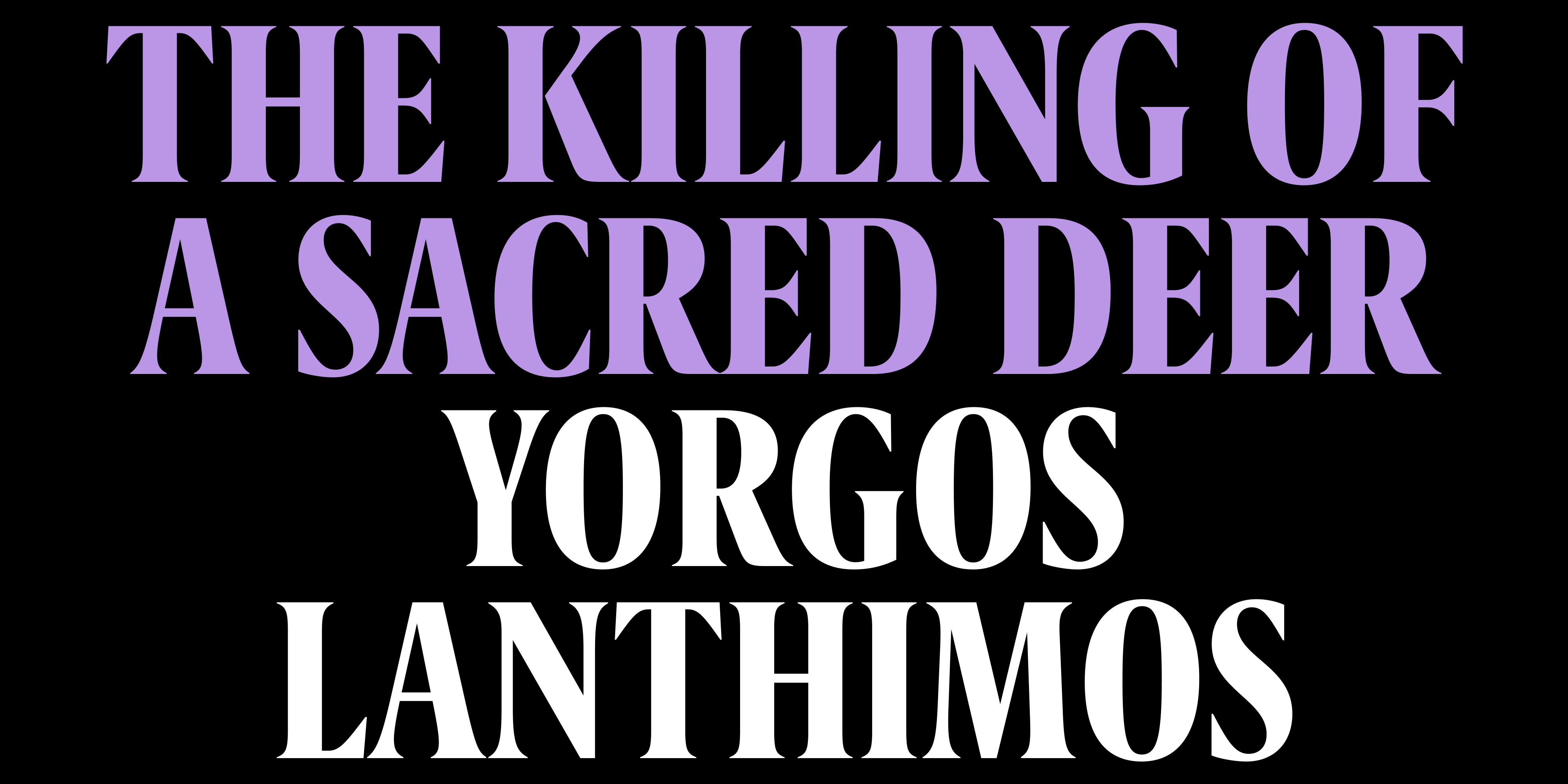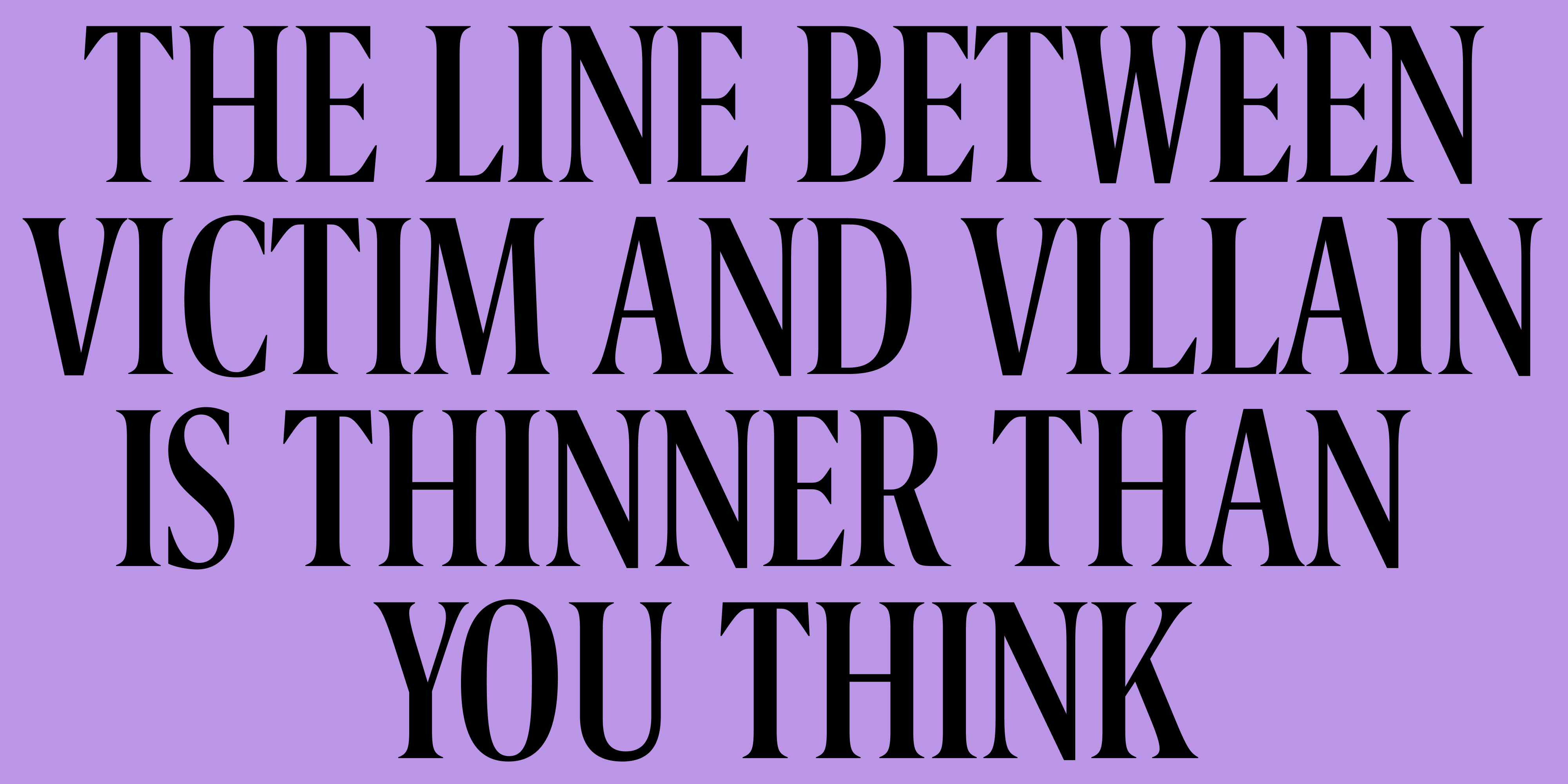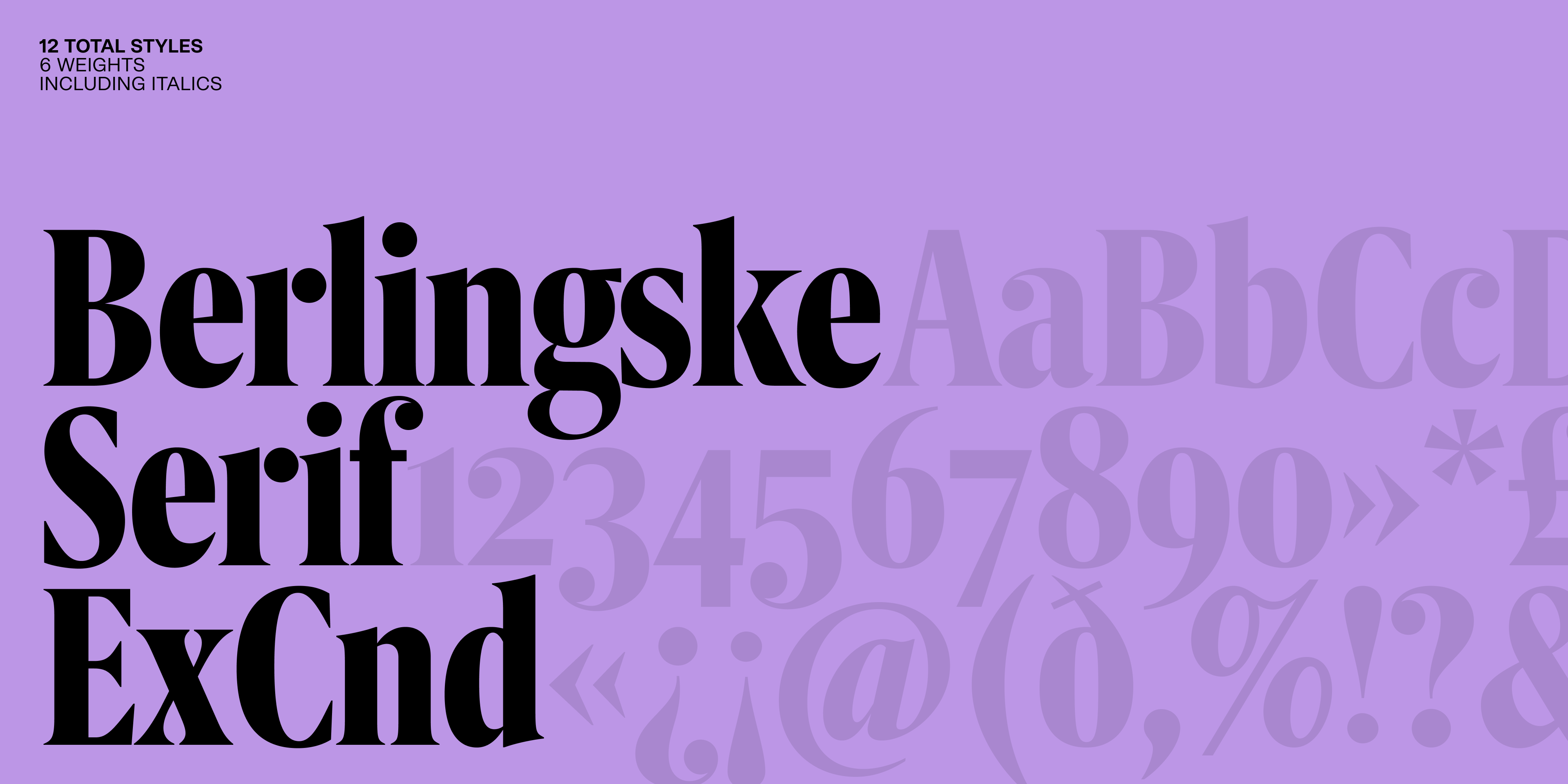
Berlingske Serif Extracondensed
Designer Jonas Hecksher
Berlingske Serif Extra-Condensed has a cathedral look whith a high vertical proportion that gives it an elegant and confident look. This style provides a high degree of usability even when space is very tight and is the perfect supplement to a regular serif when there is a need for notes and appendixes. The cathedral look also functions tremendously well in larger sizes, tabloid and display and is highly legible from a distance.